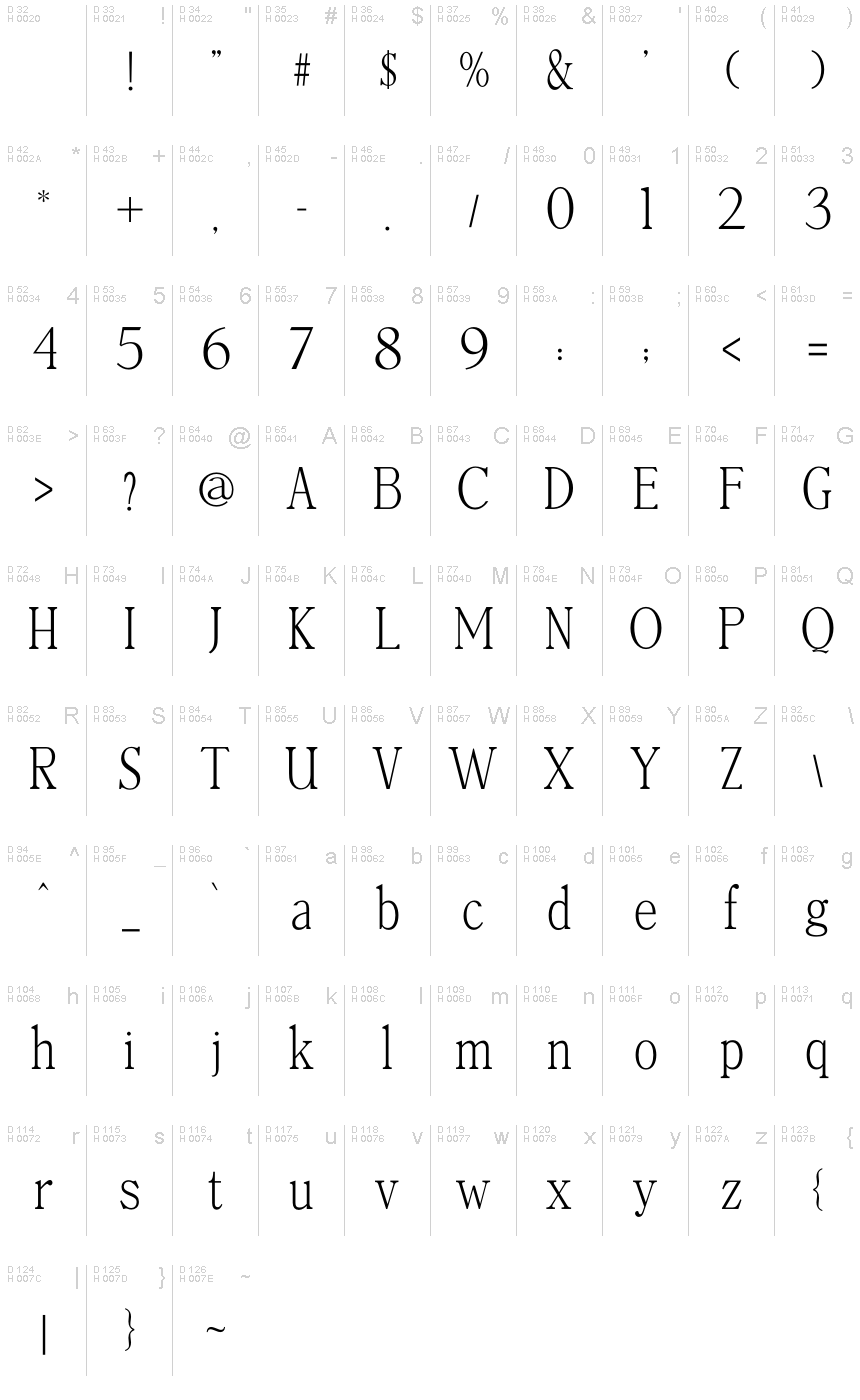
Nebos
Nebos, crafted by the artisans at Font Kingdom, is a serif that carries an air of sophistication with its elegant structure. Its character strokes offer a dance between tradition and modernity, where timeless serifs meet a streamlined form. This condensed font exudes confidence without overwhelming the page, making it an excellent choice for those seeking to convey professionalism with a hint of flair.
In the world of design, Nebos finds its strength in versatility. Whether gracing the pages of a luxury magazine or adorning the branding materials of high-end products, this font stands out for its ability to marry classic appeal with contemporary compactness. Its subtle charm is equally suited for impactful headlines and delicate body text, ensuring that your message is not only seen but felt.